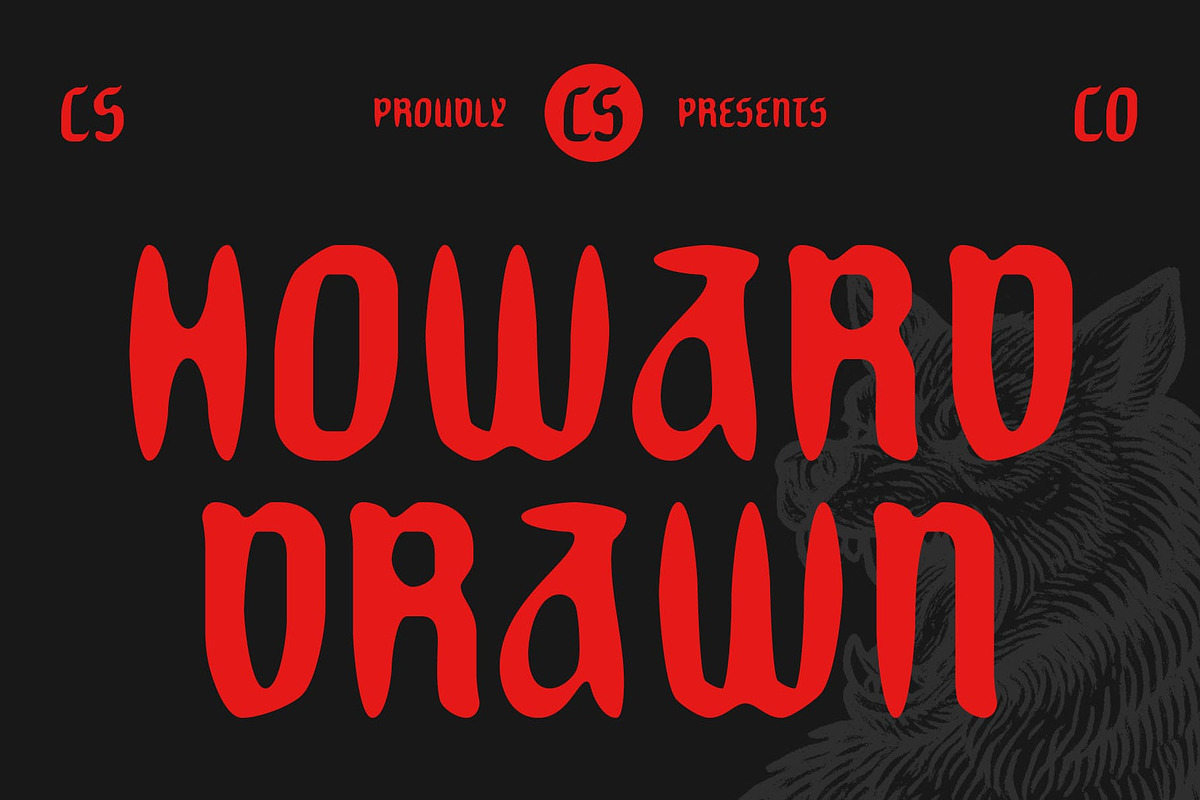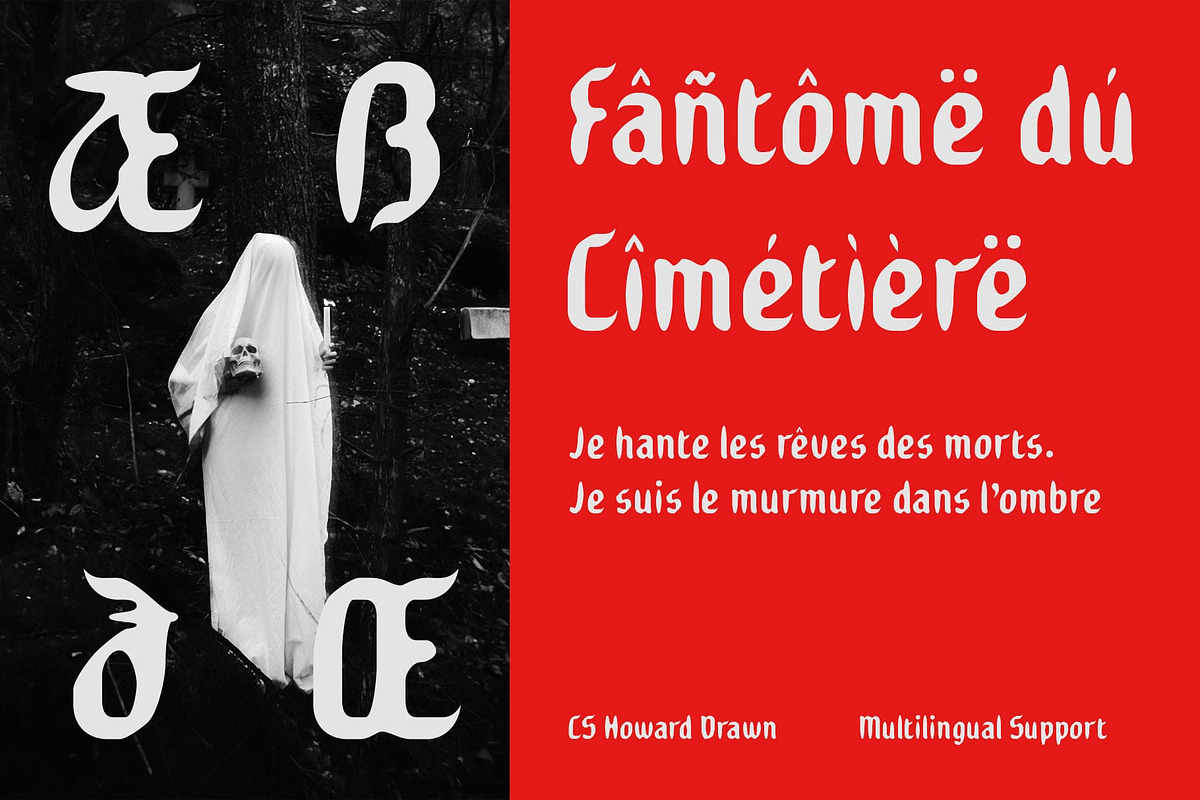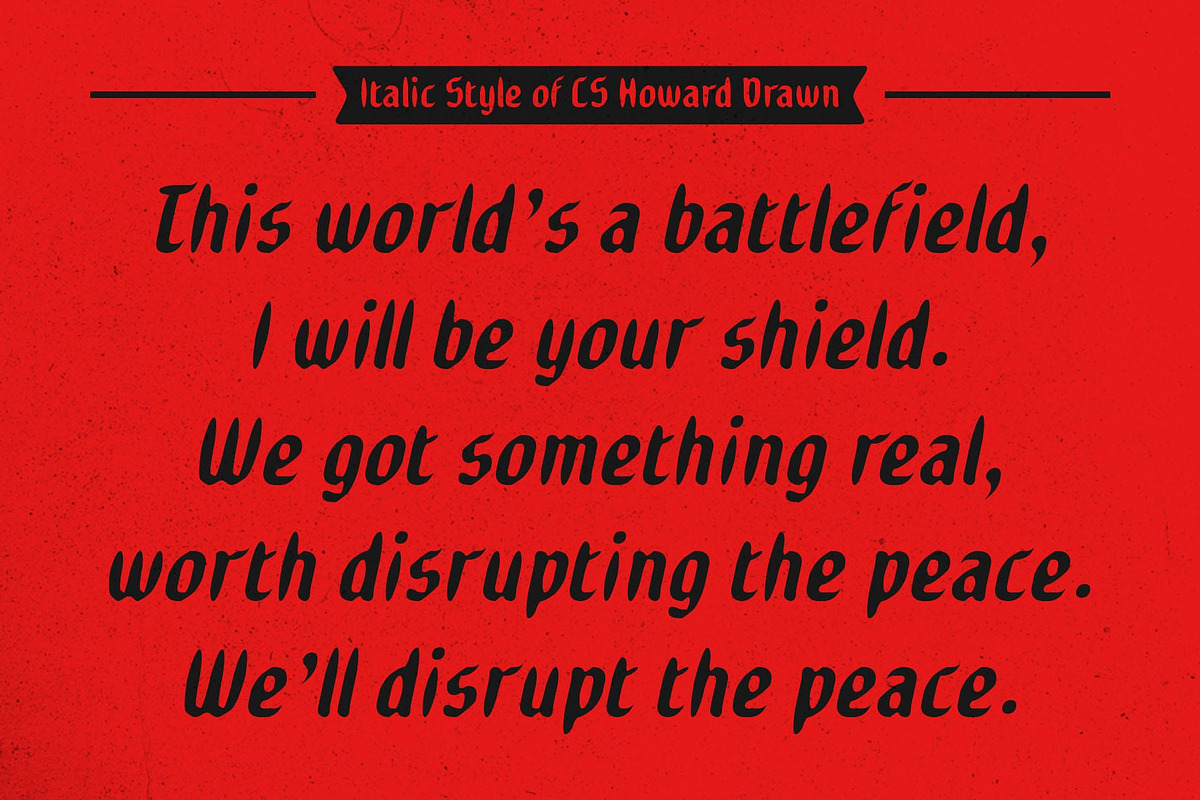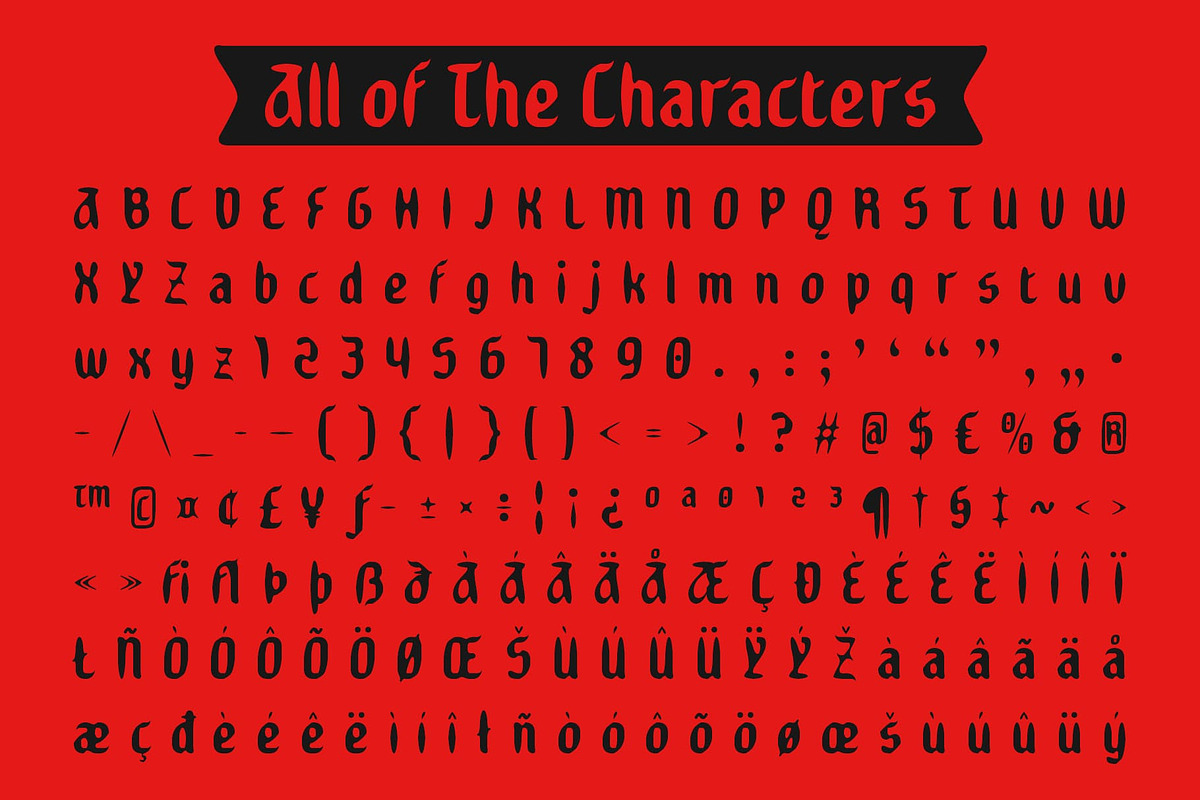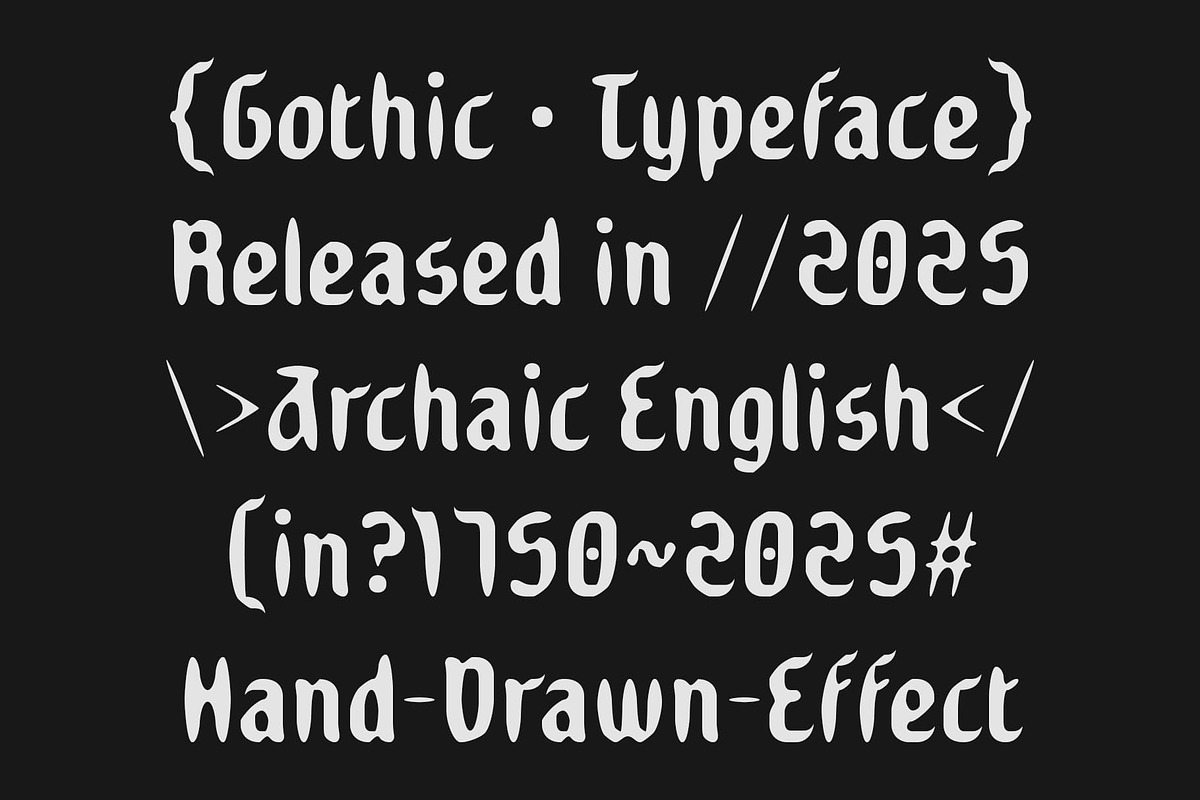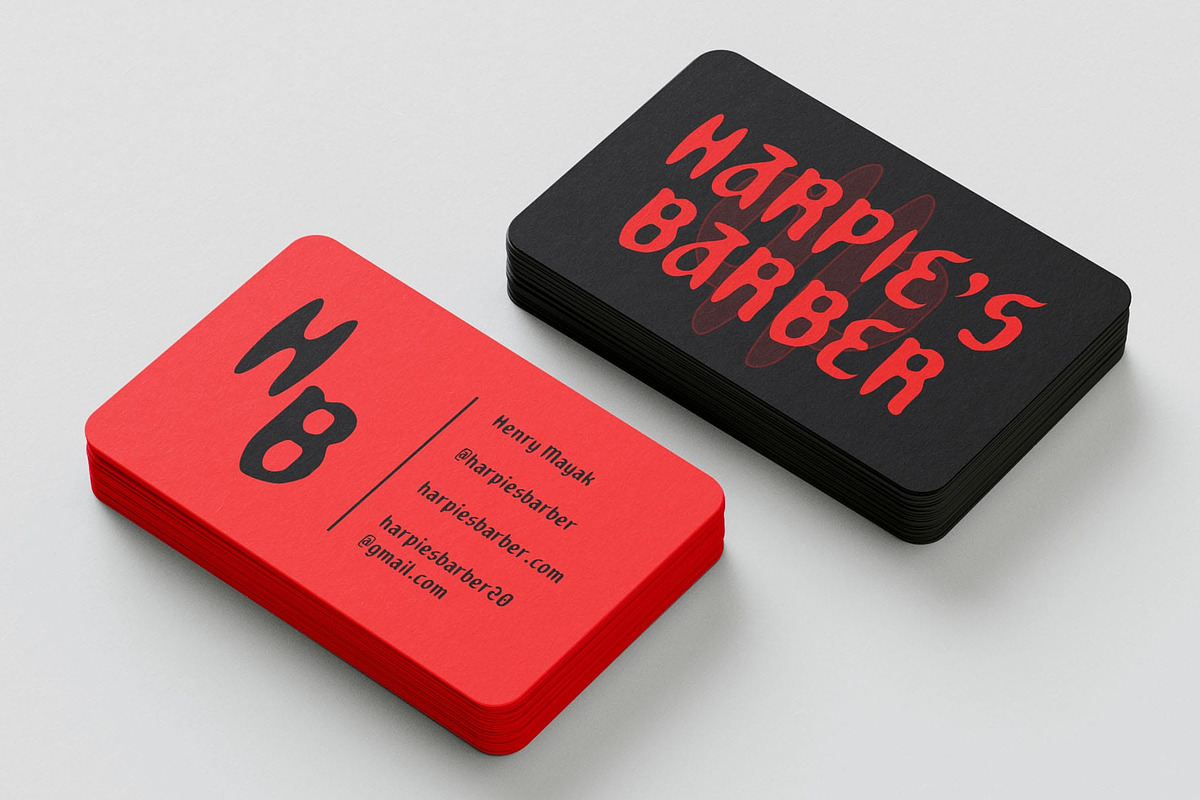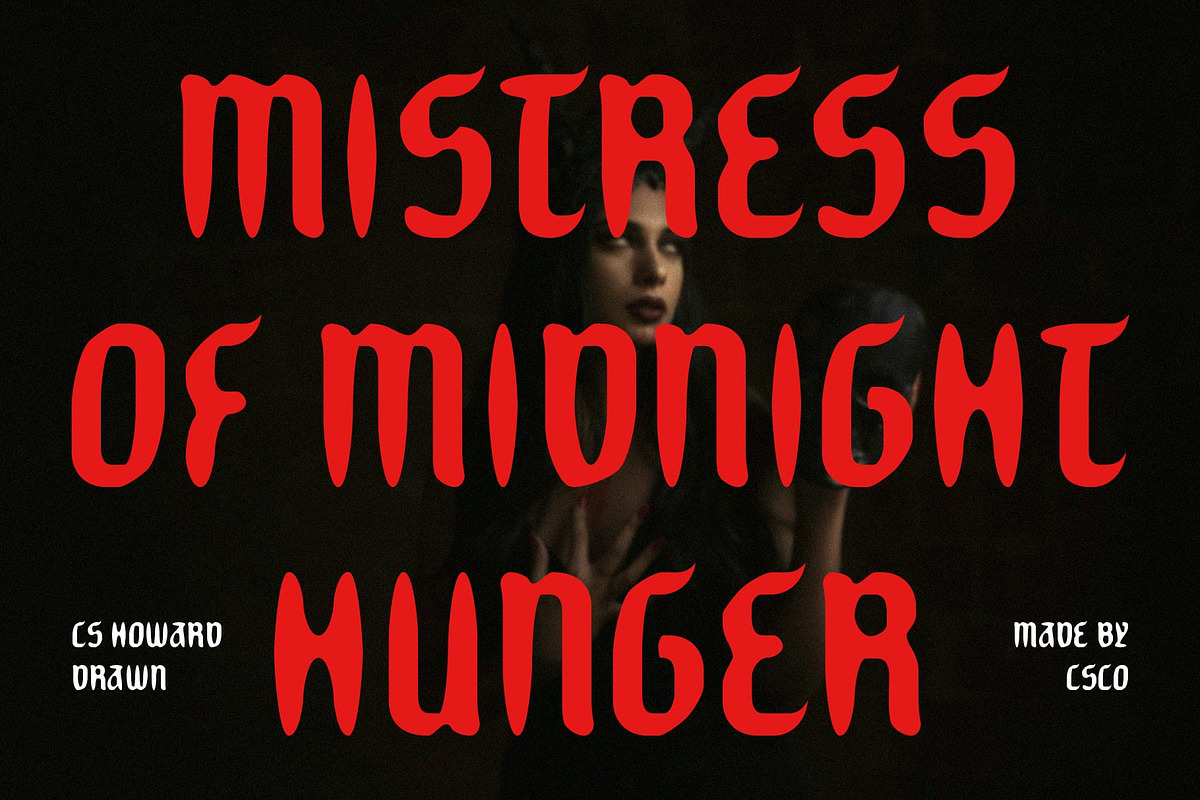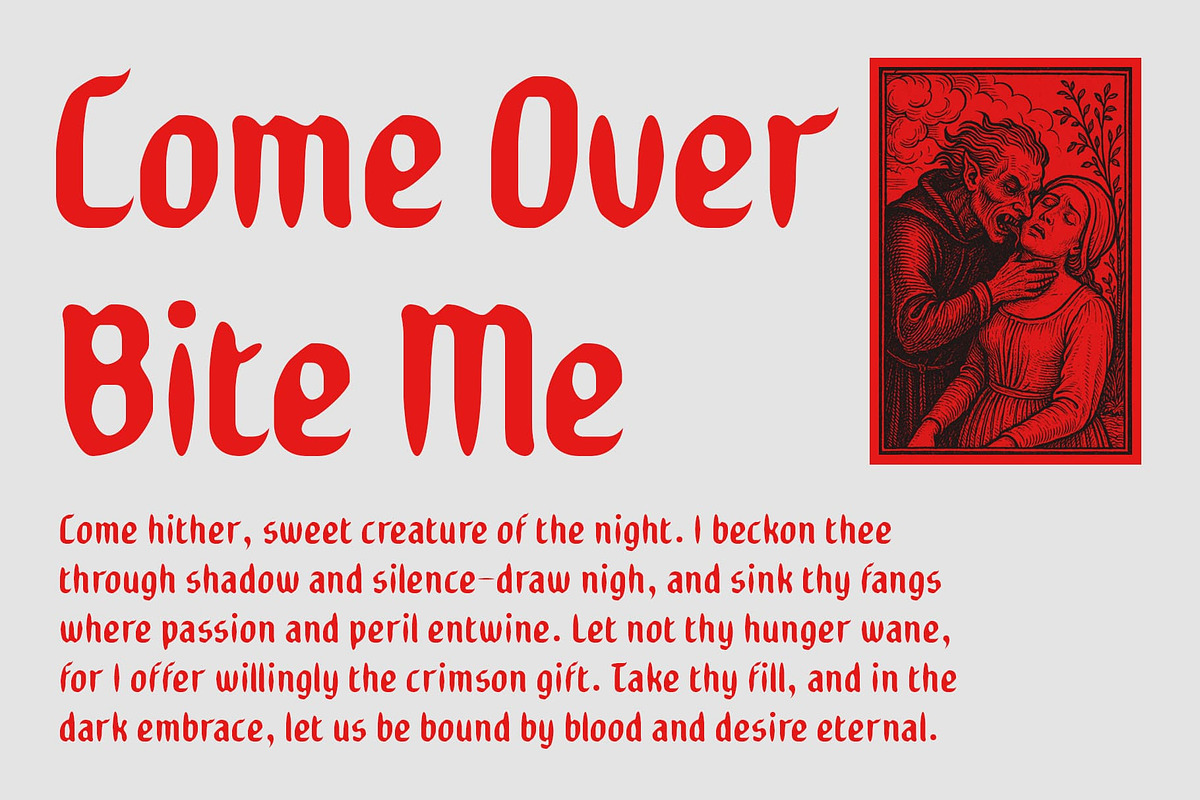
CS Howard Drawn
CS Howard Drawn – Modern Gothic Edge with Handcrafted Flair
Display Sans Serif with Gothic Influence and Drawn Texture CS Howard Drawn is a modern gothic display sans serif font that masterfully combines clean, sharp lines with subtle handcrafted textures. Drawing inspiration from gothic aesthetics, it infuses contemporary minimalism with dramatic flair, resulting in a font that commands attention while remaining elegant and refined.
Drawn Effect for Authentic, Textured Character The distinct drawn effect adds a handcrafted, organic quality to the font, giving each letterform unique texture and depth. This artistic touch softens the precision of the clean lines, making the overall design feel warm, tactile, and visually intriguing. The balance between structure and artistry creates a font with real personality and character.
Bold, Edgy, and Versatile Design With its bold and edgy presence, this stands out in any creative context. It expertly balances the raw power of gothic forms with modern simplicity, making it equally suitable for avant-garde editorial layouts or contemporary branding projects.
Perfect for Artistic, Fashion, Music, and Alternative Visuals This font is ideal for projects that seek to evoke a strong, expressive mood with a gothic twist. It’s perfect for artistic branding, fashion editorials, music posters, album covers, and any alternative or experimental designs that demand a memorable and striking typeface. CS Howard Drawn’s unique combination of clean modernism and gothic drama.